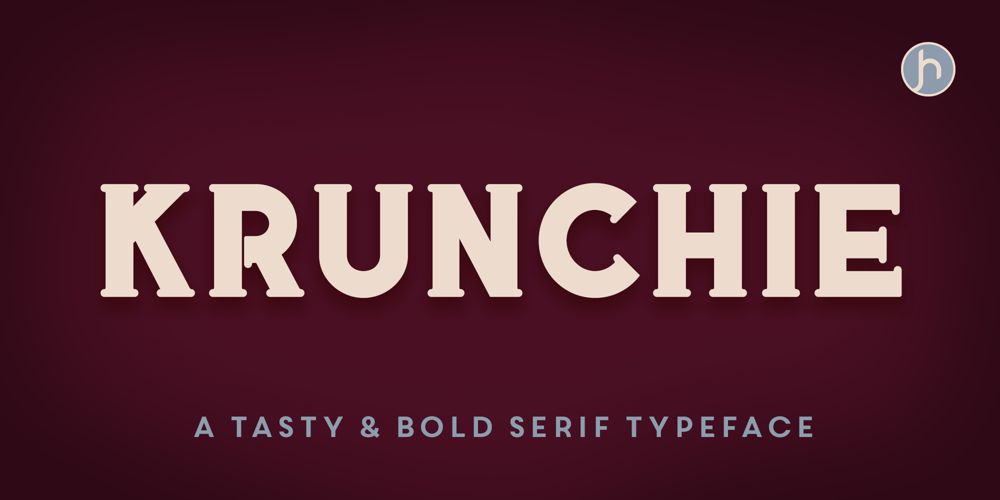
Krunchie
Krunchie font
Krunchie Font Family was designed by Joe Hewitt and published by Joe Hewitt Design. Krunchie contains 1 styles and family package options. Krunchie, as the name suggests, aims to fulfil your needs for any foodie-themed projects. Its bold nature makes it highly legible on menus and stands out on high-street restaurant signage.Don’t let Krunchie’s deliciousness fool you. Due to its bold stems, low contrast and rounded serifs, it is usable for a wide range of design briefs. The geometric elements also add a modern aesthetic to the typeface.Krunchie comes with full and small caps, both with matching numerals.